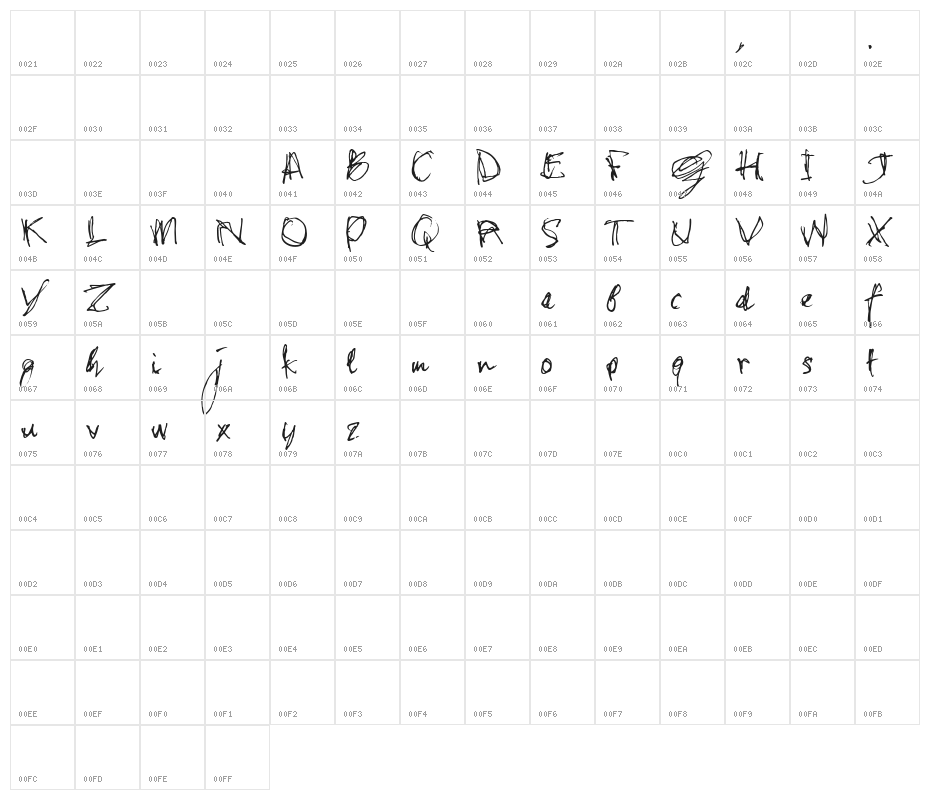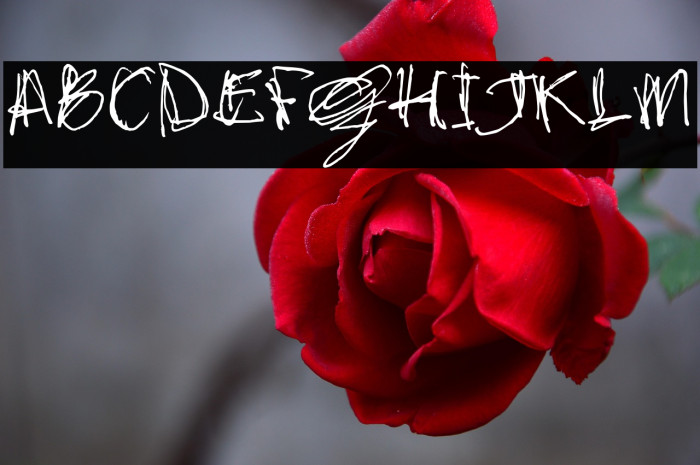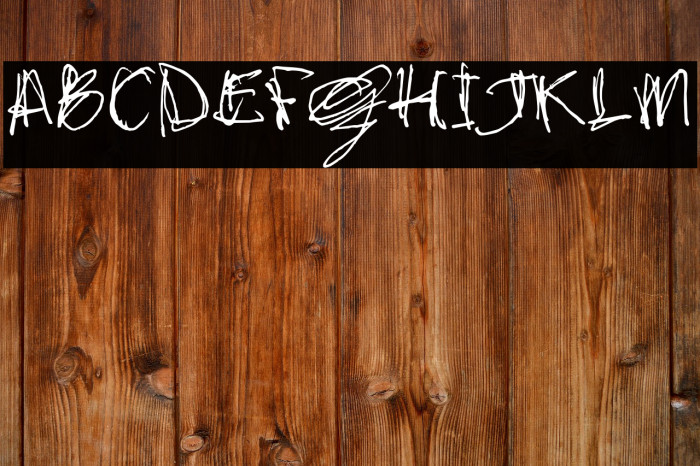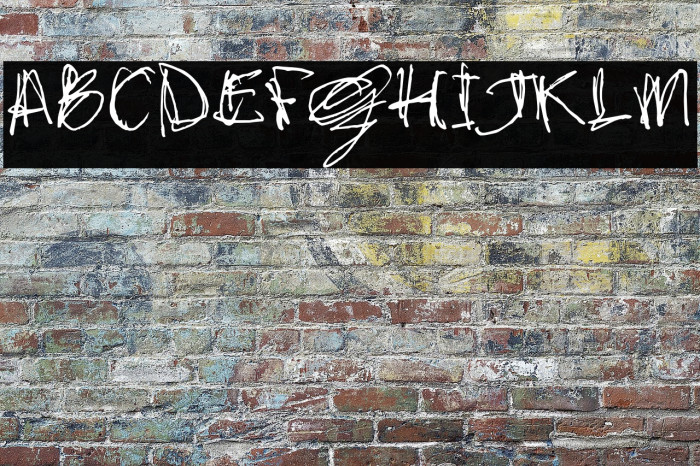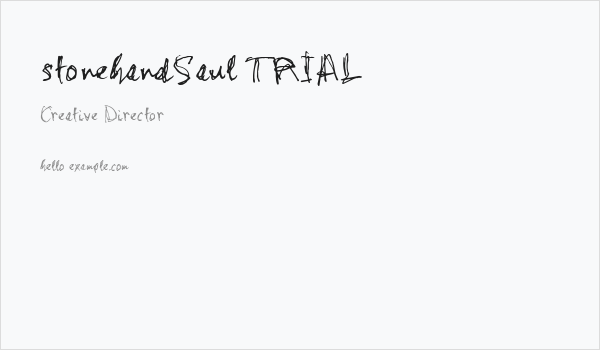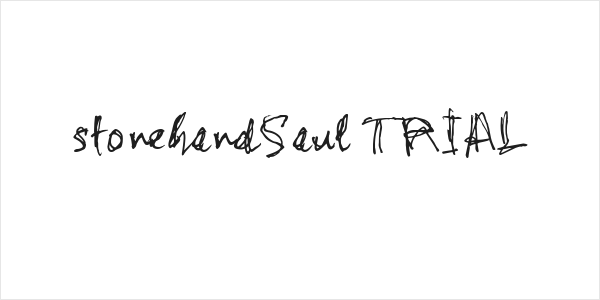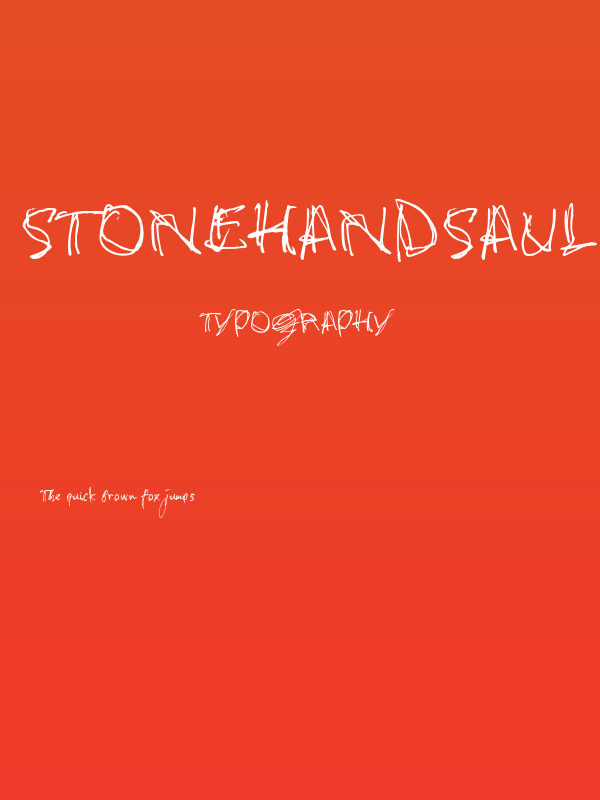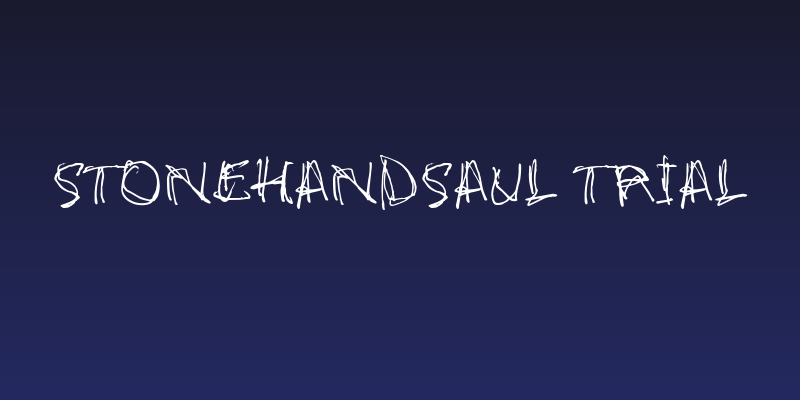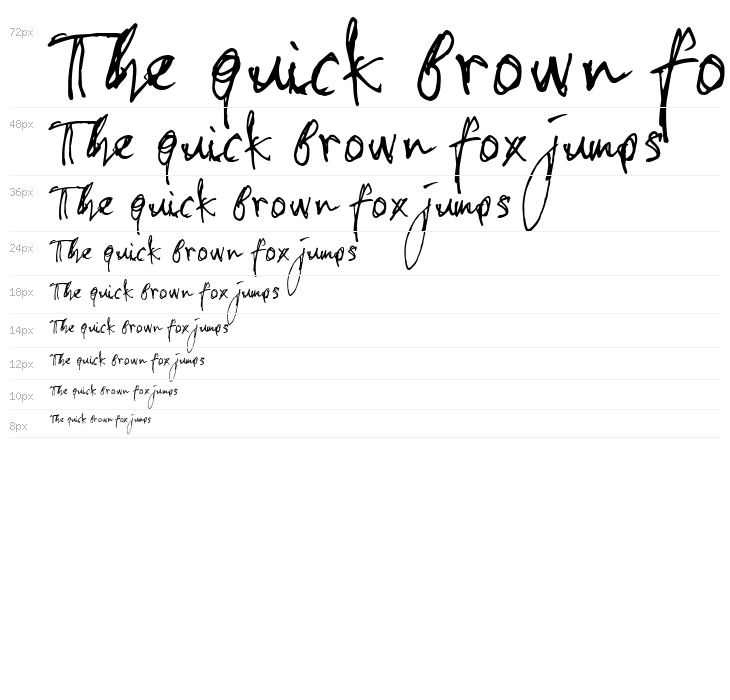
stonehandSaul_TRIAL Font
stonehandSaul_TRIAL Description
This font features a dynamic and expressive handwritten style, characterized by its irregular and spontaneous strokes. The letters exhibit a sense of movement and energy, with varying thicknesses that create a textured and artistic appearance. The uppercase and lowercase letters maintain a consistent style, with a slightly chaotic yet intentional design that adds to its unique charm. The font's overall look is bold and impactful, making it suitable for creative and artistic projects. The special characters are integrated seamlessly, maintaining the font's distinctive style.